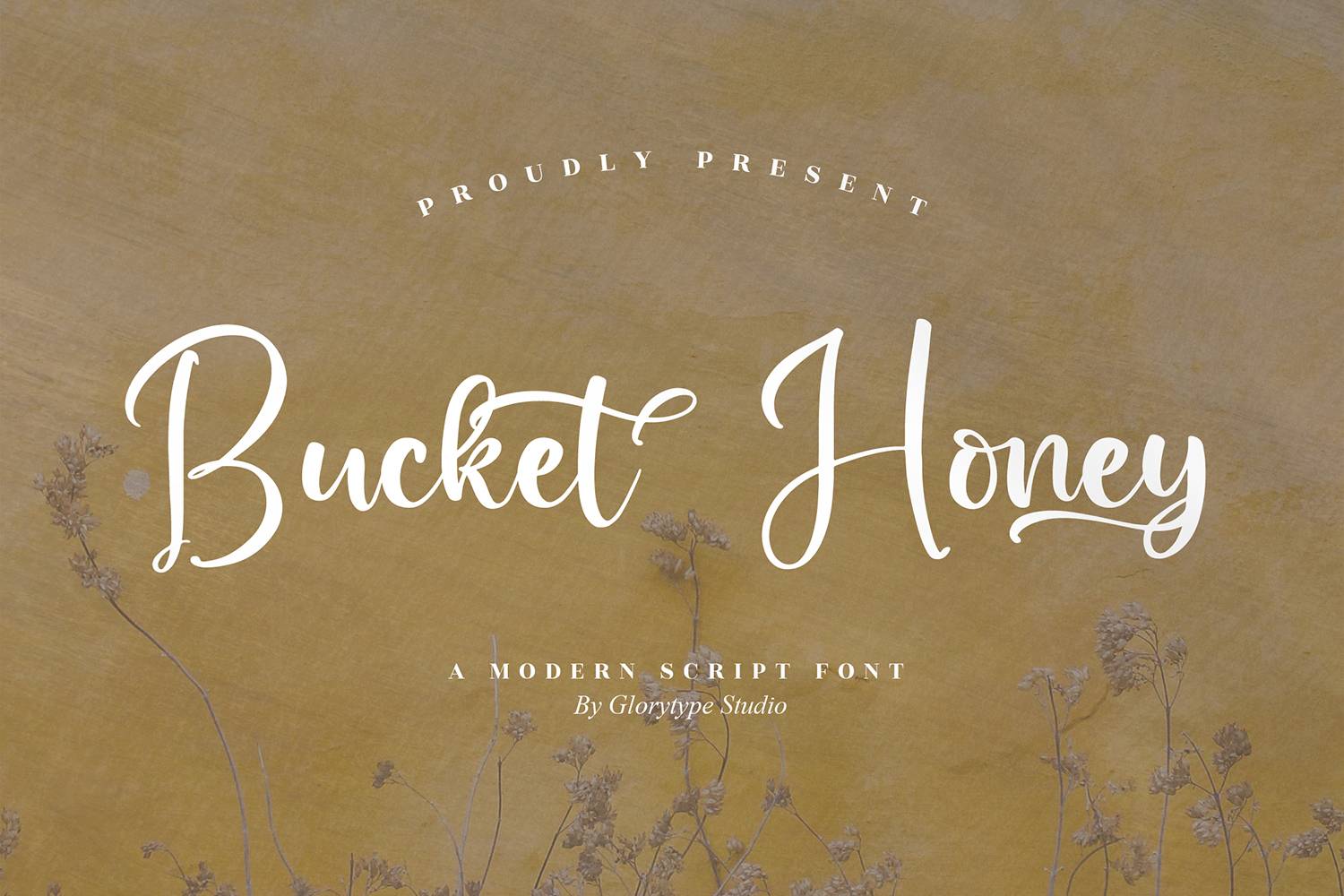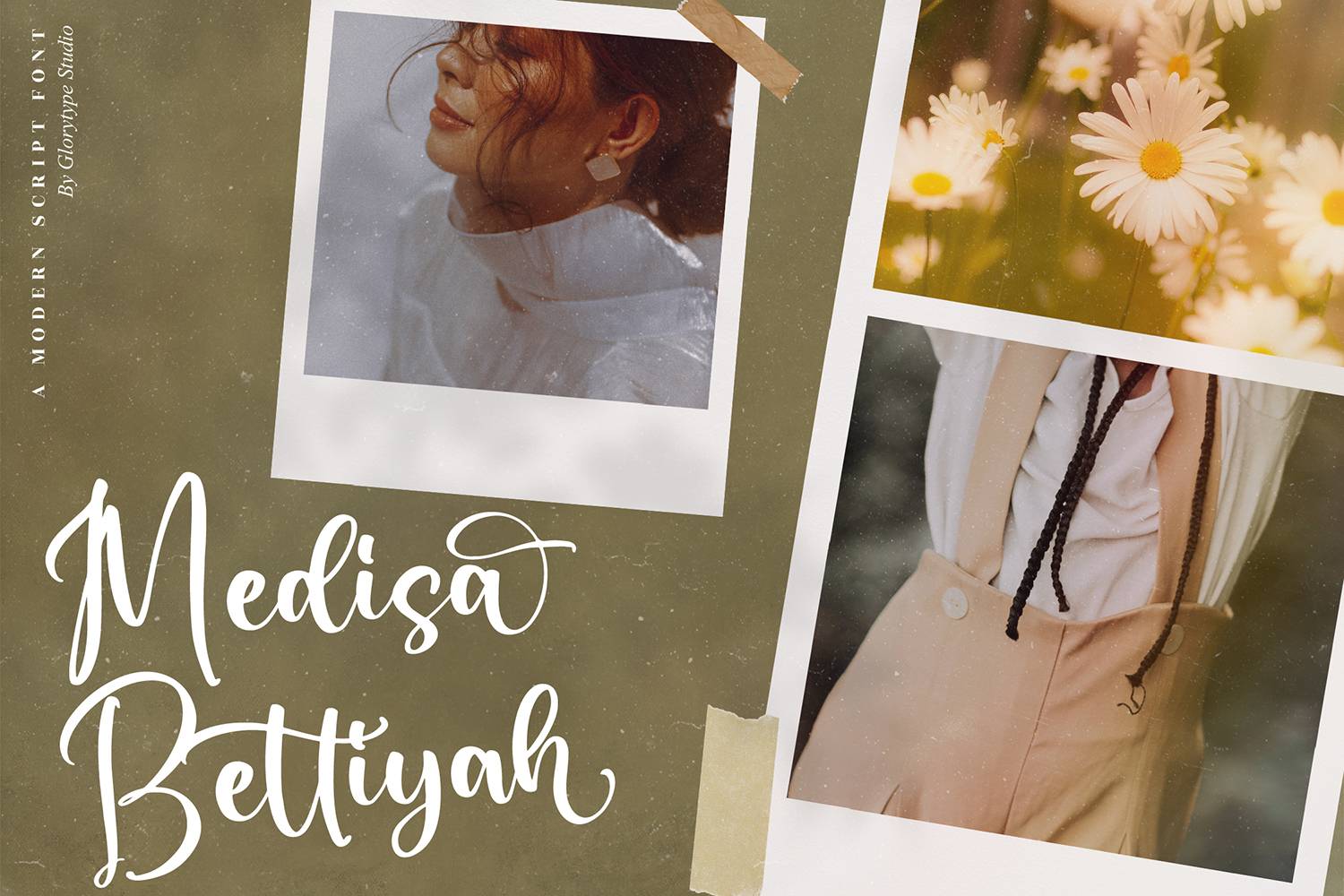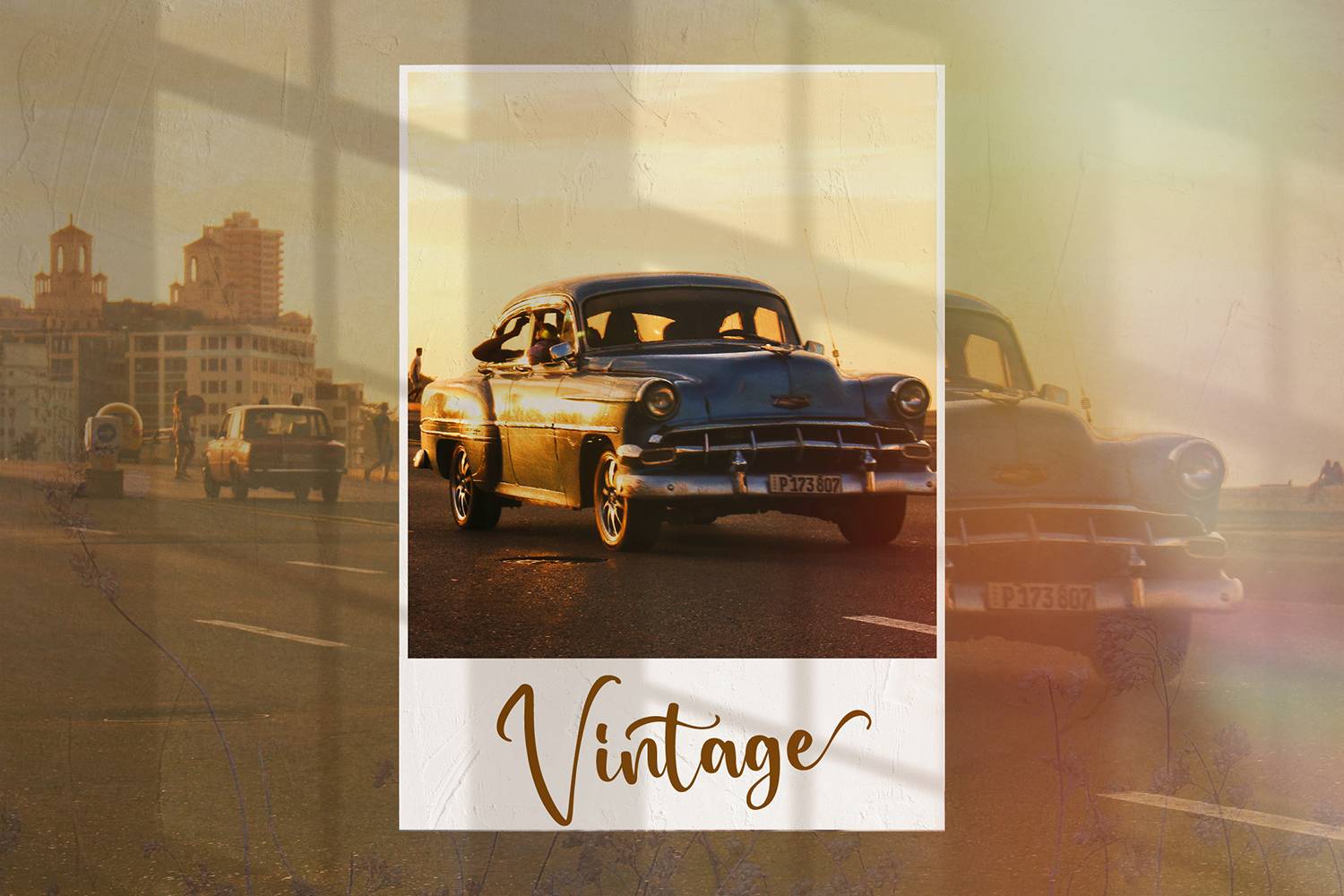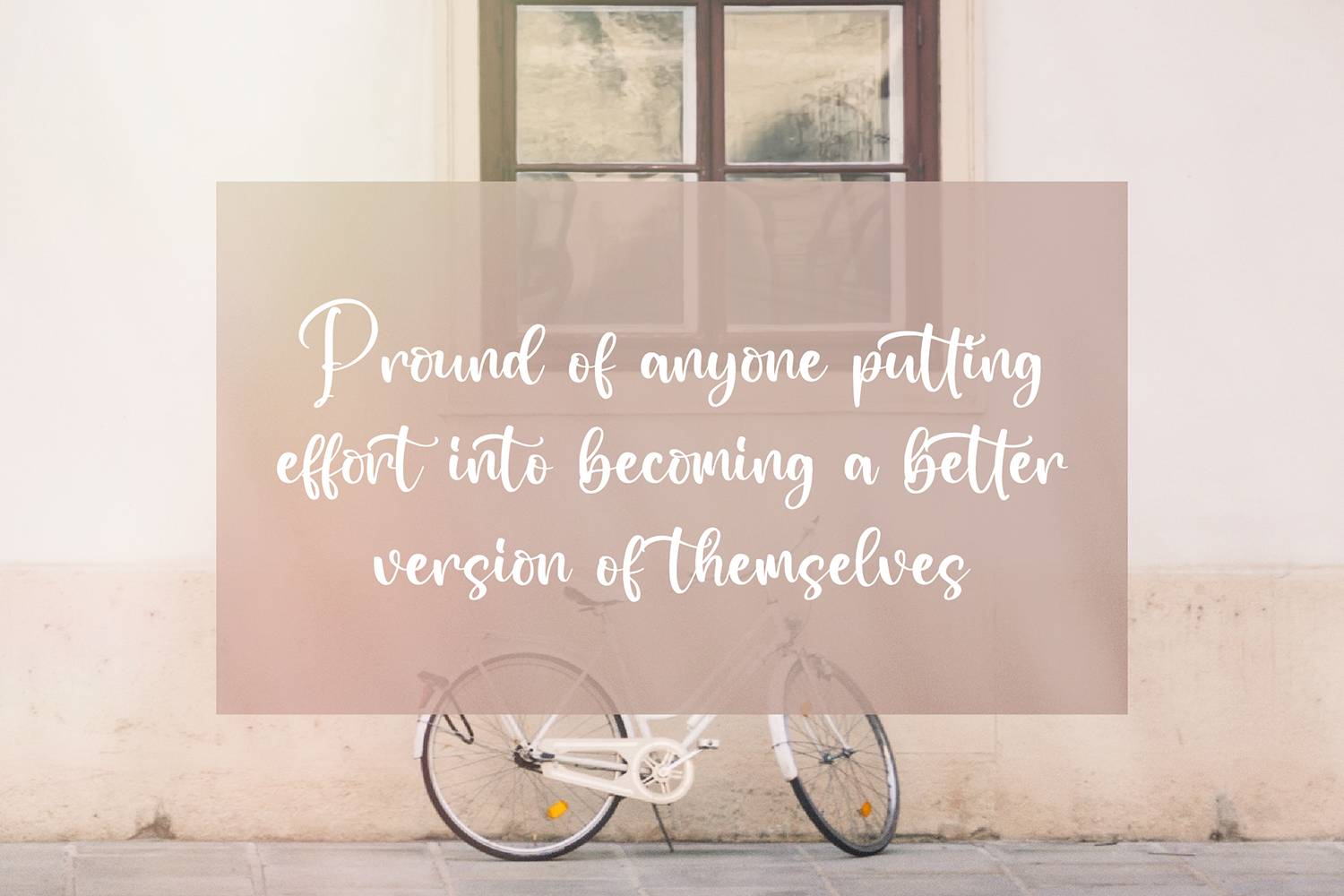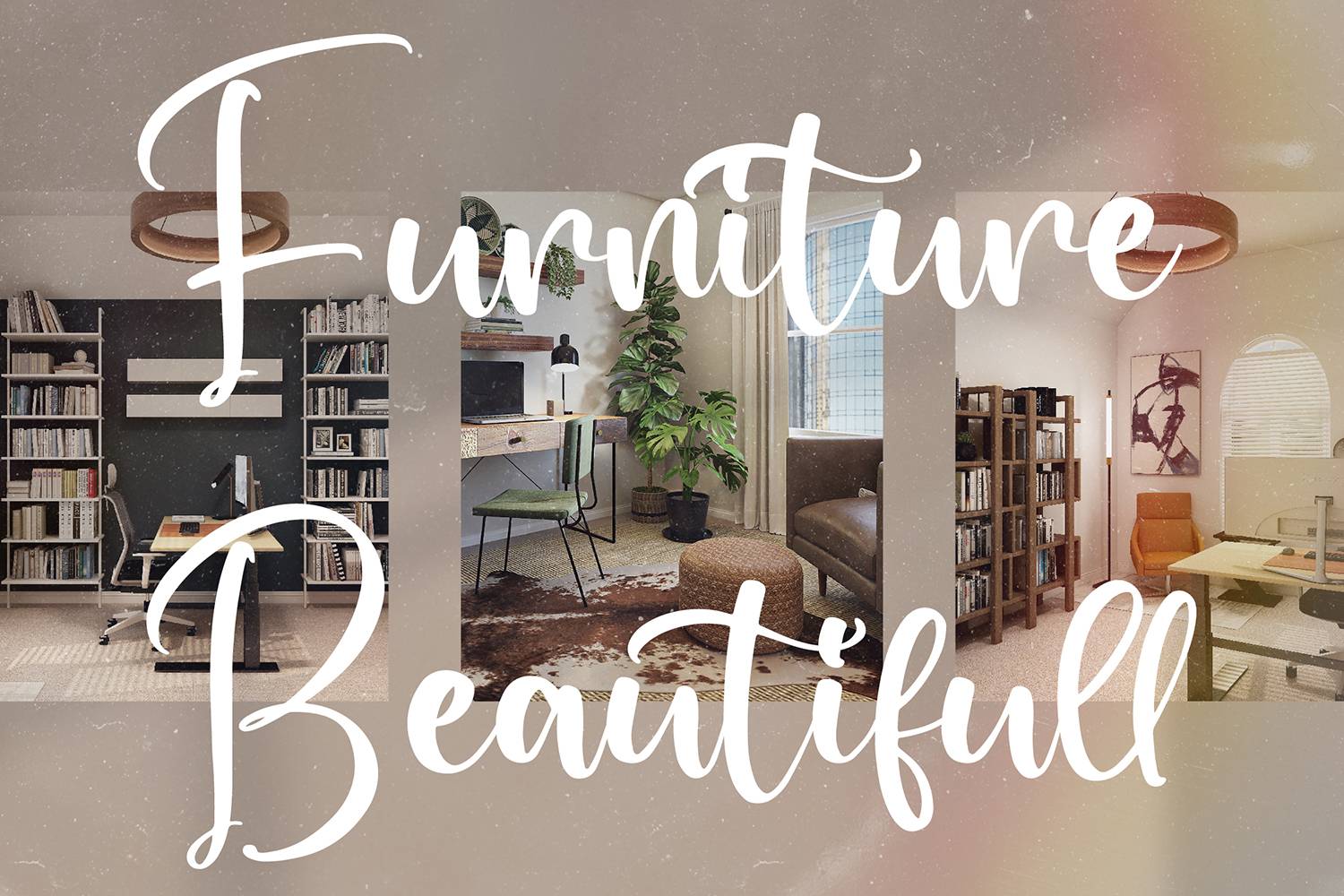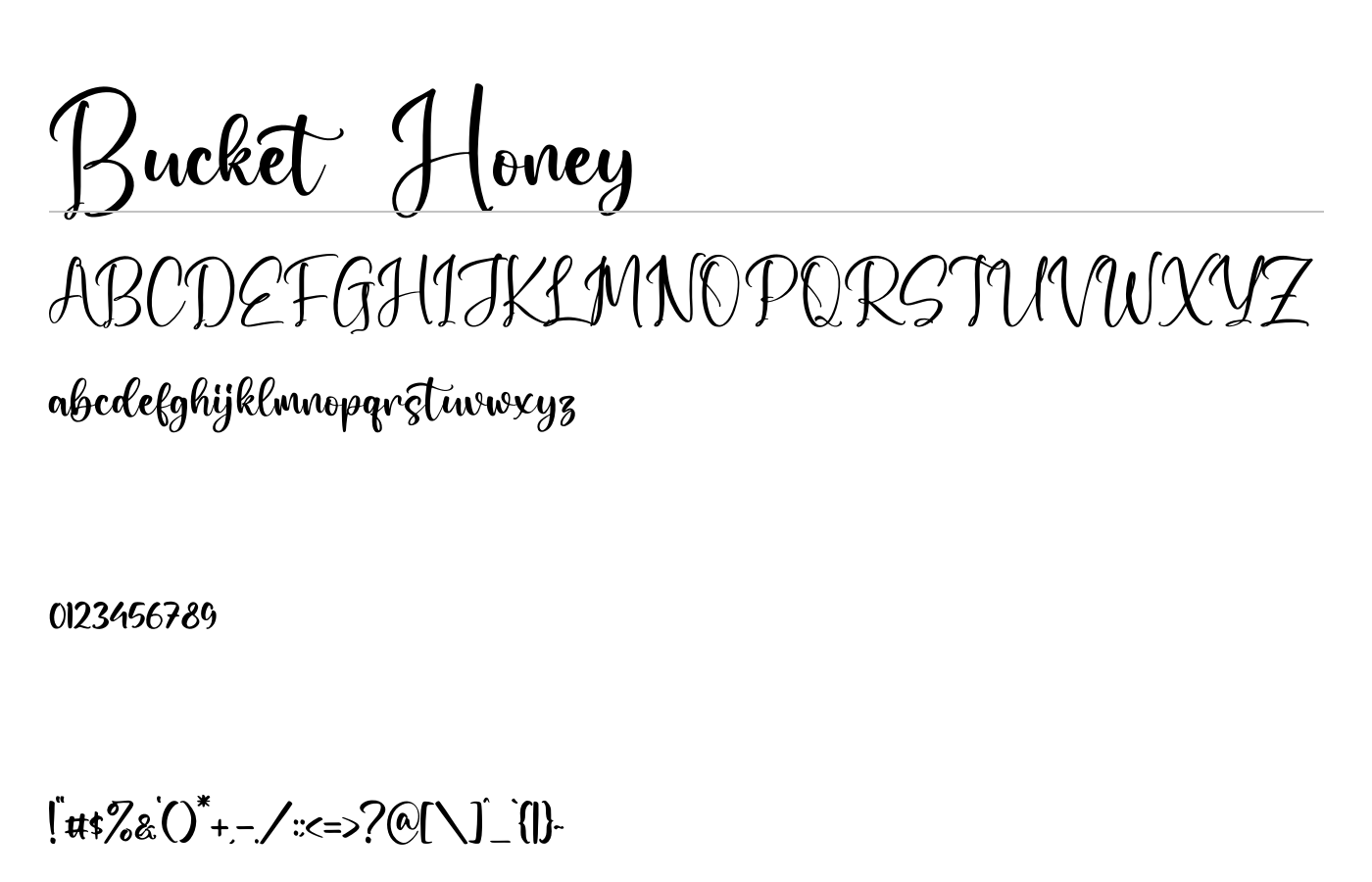
Bucket Honey is a playful and elegant script font featuring smooth, flowing strokes with varied contrast and charmingly whimsical uppercase letters. Its casual yet refined style makes it ideal for creative branding, invitations, and headlines that need a friendly, approachable personality. This font works well where a lively, hand-crafted look is desired, adding a warm and personal touch to design projects.
Bucket Honey Font
About Bucket Honey Font